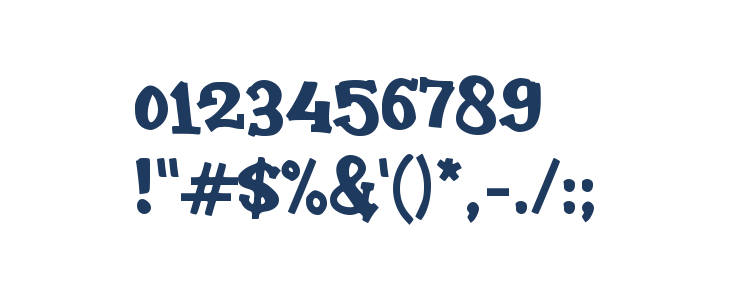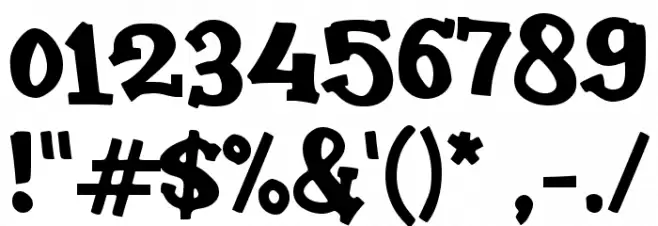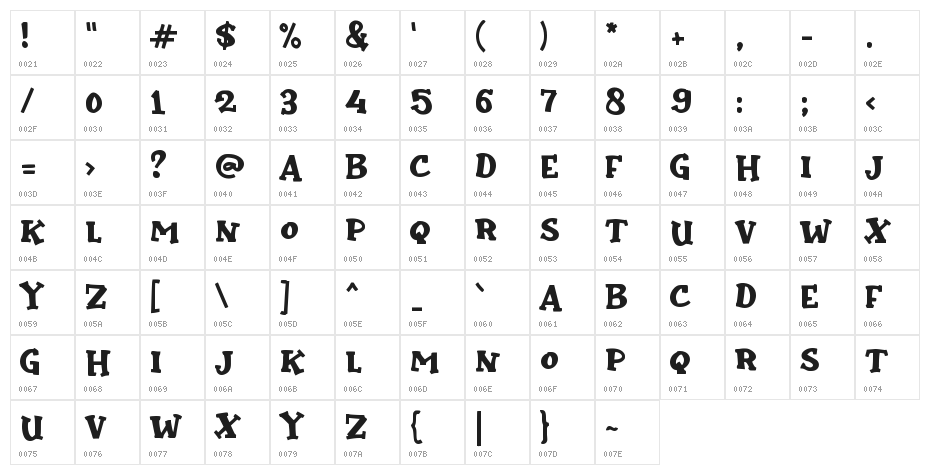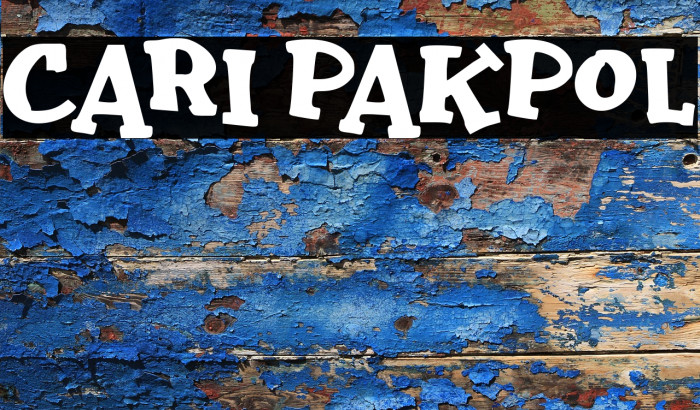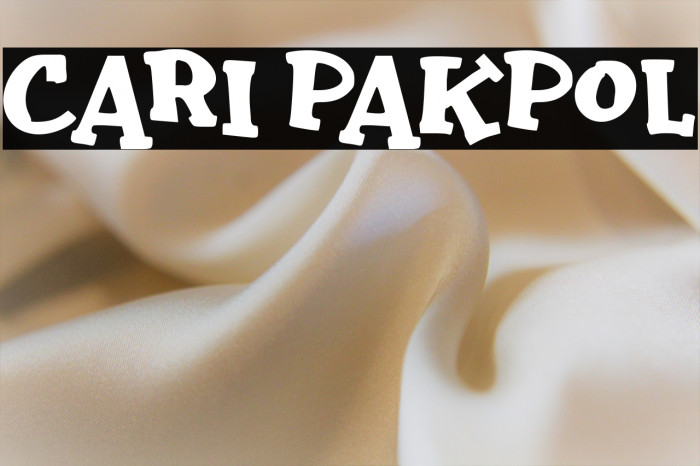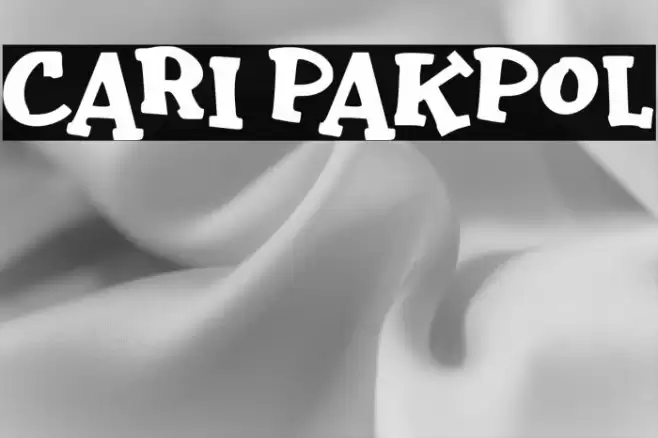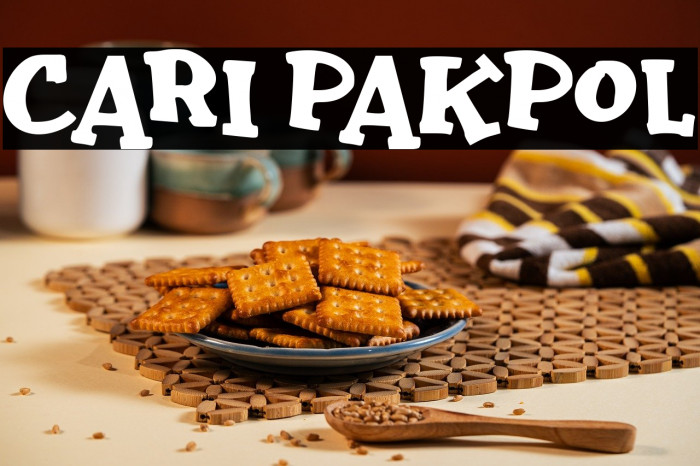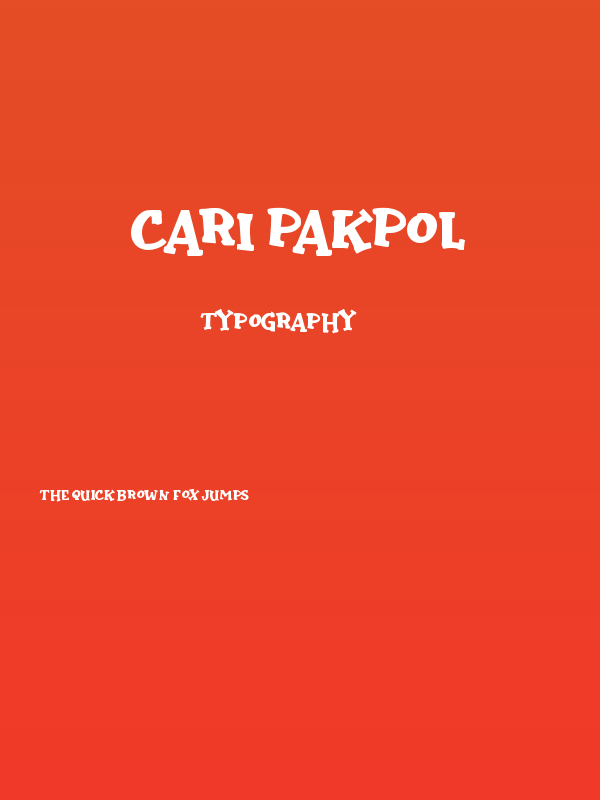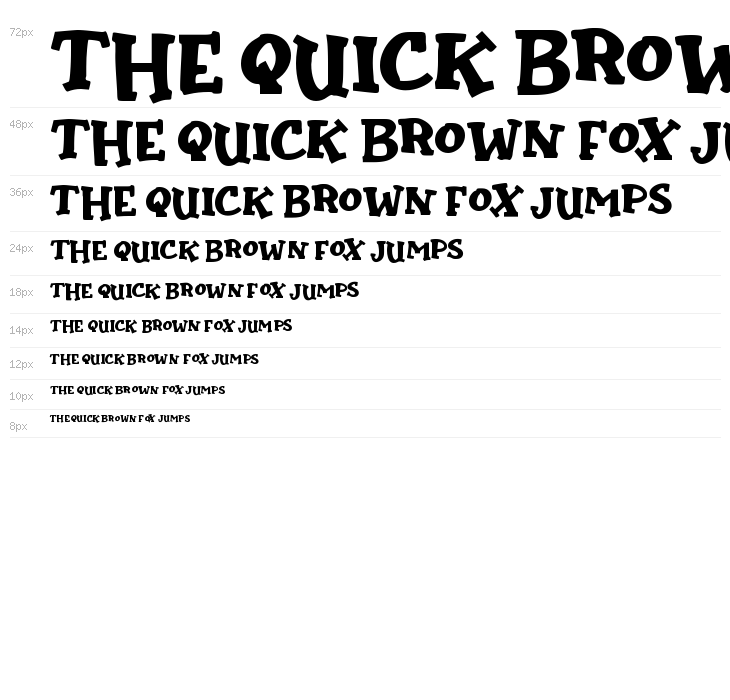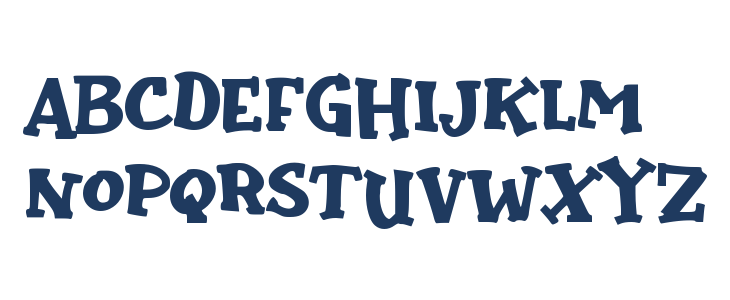
Cari Pakpol Font
Cari Pakpol Description
This font features a playful and bold design with a hand-drawn aesthetic. The letters have a whimsical, cartoon-like appearance, characterized by uneven strokes and exaggerated serifs. The uppercase and lowercase letters maintain a consistent style, with a slightly irregular baseline that adds to the casual, informal feel. The numbers and special characters follow the same playful theme, making the font suitable for creative and fun projects. The overall look is dynamic and eye-catching, perfect for capturing attention.
| Proposed Projects | Ideal for children's books, comic strips, playful branding, and party invitations. |